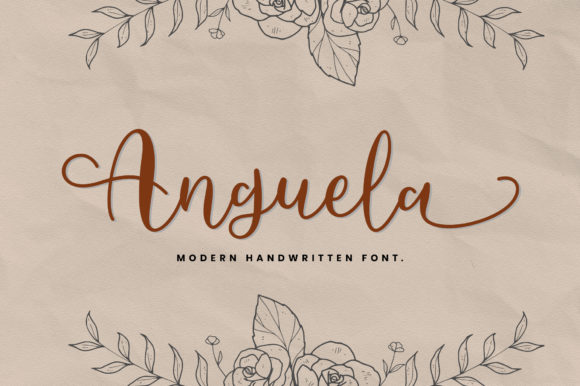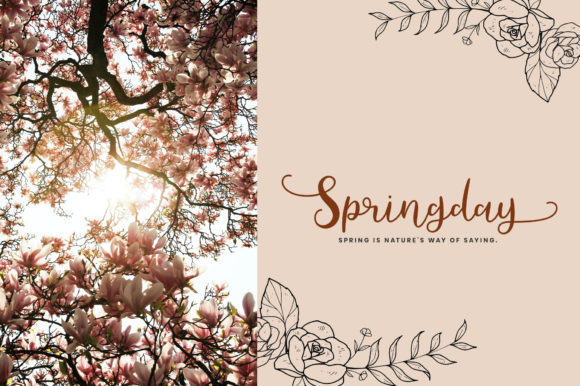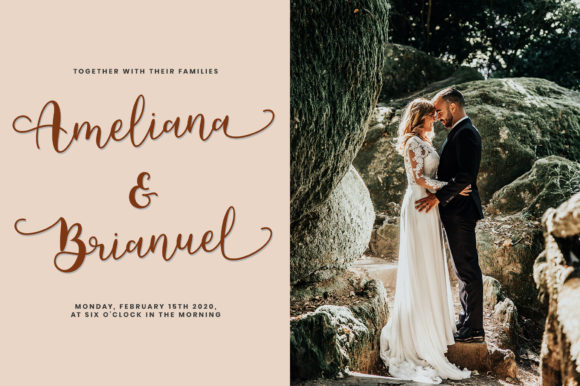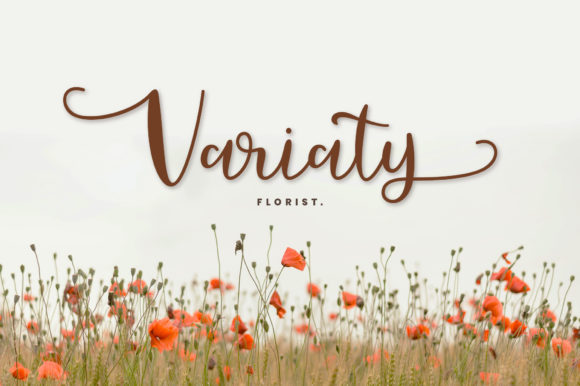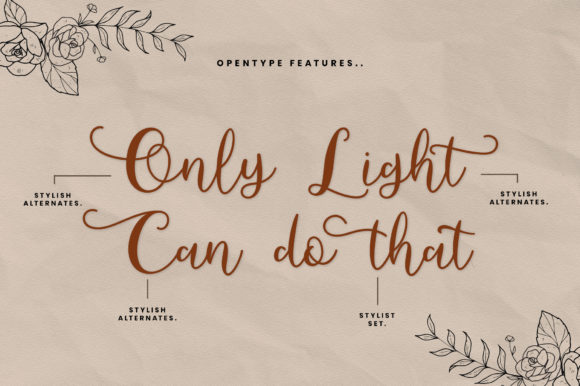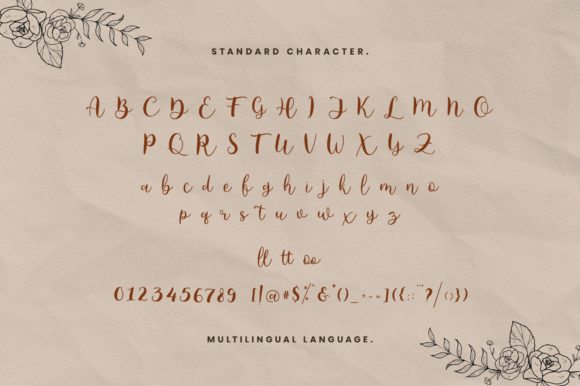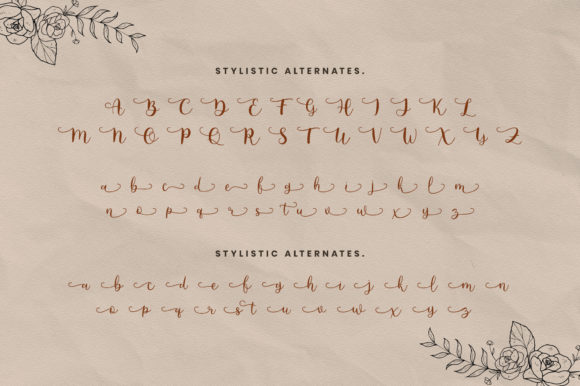
Anguela Font
About Anguela Font
Anguela is a gorgeous calligraphy handwritten font. Fall in love with its authentic feel and use it to create gorgeous wedding invitations, beautiful stationary art, eye-catching social media posts, and cute greeting cards.